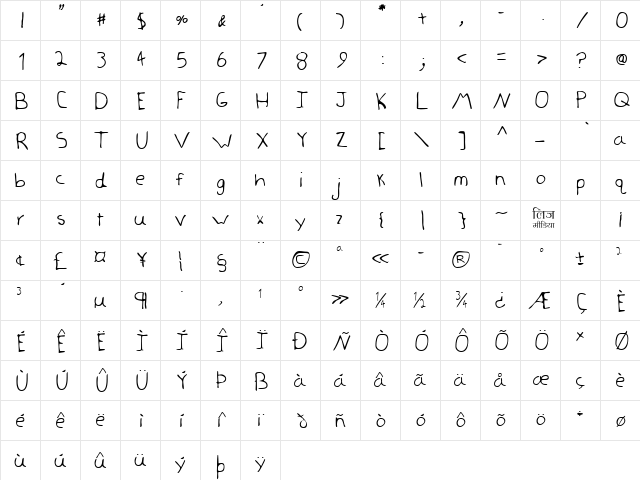
LEHN011 Regular Font Preview
LEHN011 Regular
Design Context for LEHN011 Typeface
LEHN011 offers clean, dependable letterforms without strong stylistic allegiance, making it a practical choice for designers who need flexibility.